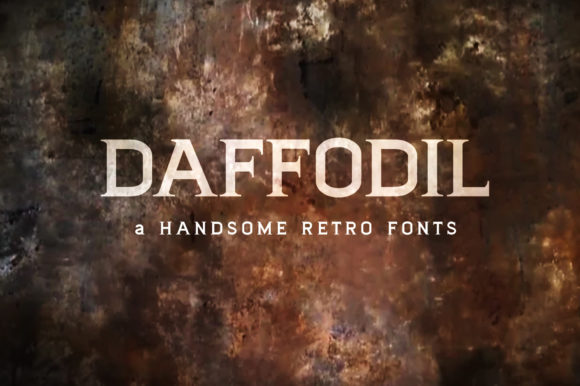
Daffodil Font: The Perfect Choice for Vintage-Inspired Designs
In the world of typography, fonts play a crucial role in conveying the tone and personality of a design. For designers and crafters looking to add a touch of classic elegance to their work, the Daffodil font is an excellent choice. This assertive, vintage-styled serif font is ideal for creating visually appealing designs that exude a sense of sophistication and refinement.
What is Daffodil Font?
Daffodil is a serif font that boasts a classic vibe, making it perfect for designs that require a bold and assertive touch. Its vintage styling is reminiscent of traditional typography, while its modern sensibilities ensure that it remains relevant in today’s design landscape. Whether you’re working on a web design, business card, or any other project that requires a font with personality, Daffodil is an excellent choice.
Key Features of Daffodil Font
So, what makes Daffodil font stand out from the rest? Here are some of its key features:
- Assertive and bold: Daffodil font is designed to make a statement. Its bold and assertive style ensures that your text doesn’t go unnoticed.
- Vintage styling: The font’s vintage styling gives it a classic, timeless feel that’s perfect for designs that require a touch of nostalgia.
- Serif font: As a serif font, Daffodil features small lines or flourishes at the ends of its letters, giving it a sophisticated and elegant look.
- Classic vibe: The font’s classic vibe makes it suitable for a wide range of design applications, from traditional to modern.
Use Cases for Daffodil Font
Daffodil font is versatile and can be used in a variety of design applications. Here are some use cases where Daffodil font shines:
- Web design: Use Daffodil font to add a touch of elegance to your website’s typography. Its bold and assertive style ensures that your text stands out, making it perfect for headings and titles.
- Business cards: Daffodil font is an excellent choice for business cards, as it adds a touch of sophistication and refinement to your professional credentials.
- Branding and packaging: The font’s vintage styling makes it perfect for brands that want to evoke a sense of nostalgia and classic elegance.
- Print design: Daffodil font is suitable for a wide range of print design applications, including brochures, flyers, and posters.
Why Choose Daffodil Font?
With so many fonts available, why choose Daffodil font? Here are some reasons why Daffodil font stands out:
- Unique style: Daffodil font has a unique style that’s both vintage and modern. Its assertive and bold design ensures that your text doesn’t go unnoticed.
- Versatility: The font is versatile and can be used in a wide range of design applications, from web design to print design.
- Elegance: Daffodil font adds a touch of elegance and sophistication to your designs, making it perfect for brands that want to evoke a sense of refinement.
In conclusion, Daffodil font is an excellent choice for designers and crafters looking to add a touch of classic elegance to their work. Its assertive, vintage-styled serif font design makes it perfect for a wide range of design applications, from web design to print design. With its unique style, versatility, and elegance, Daffodil font is sure to make your designs stand out.